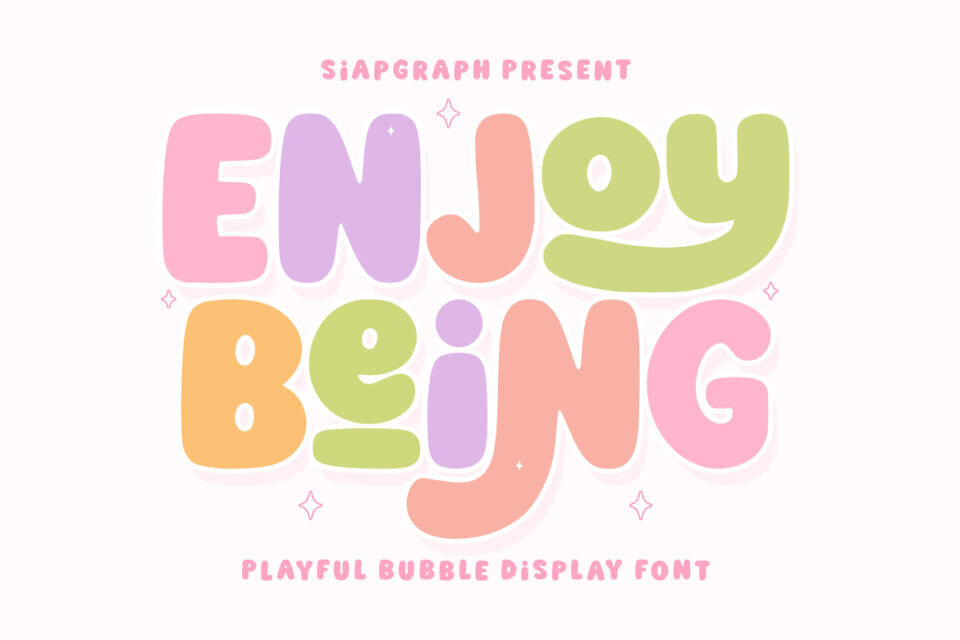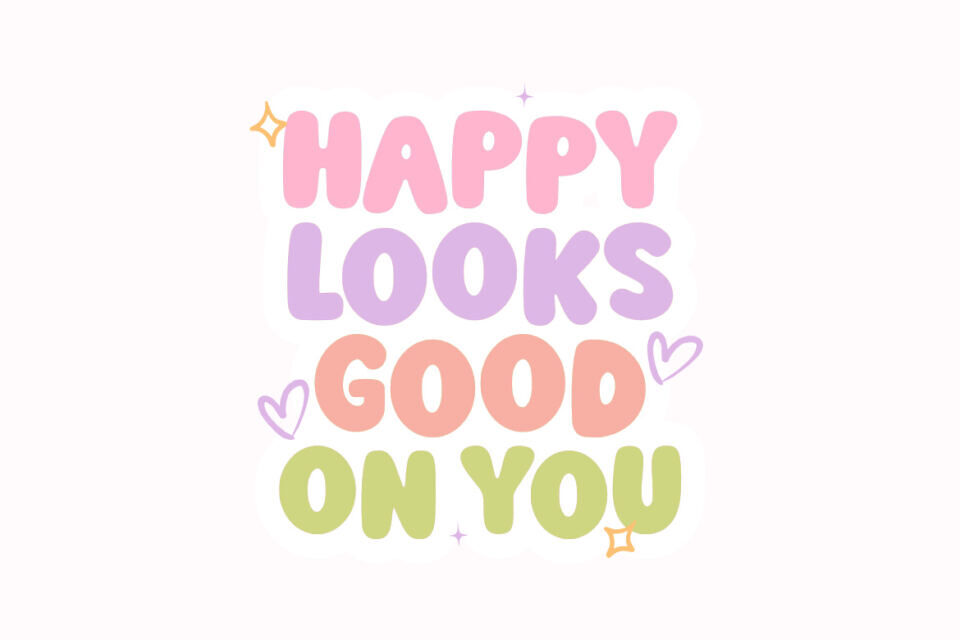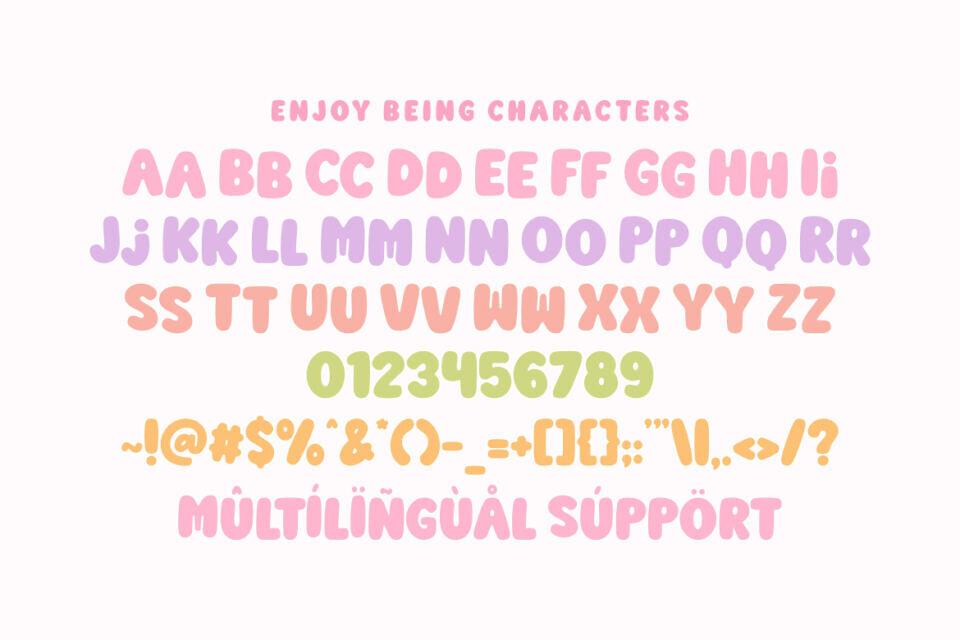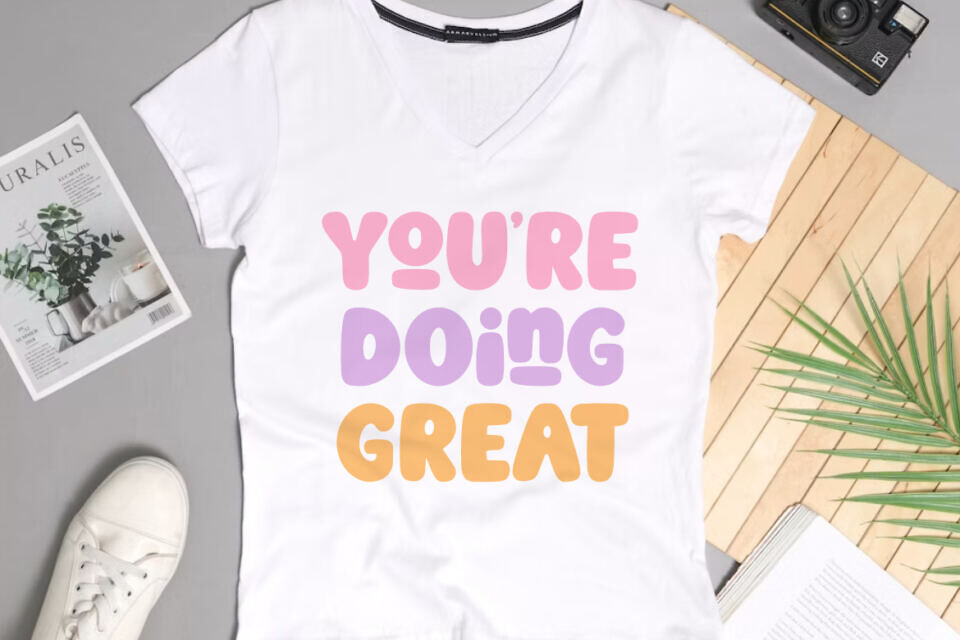
Enjoy Being Font
Truth bubble is a cute bubble display font designed to bring a soft, friendly, and playful atmosphere to your creative projects. Featuring thick, rounded characters with delicate glossy highlights, this typeface captures a joyful, bubbly aesthetic that is both modern and approachable.
Its bold, clean construction is specifically optimized for the crafting community, ensuring a seamless and easy cutting experience for all your vinyl projects, sublimation, and digital designs.